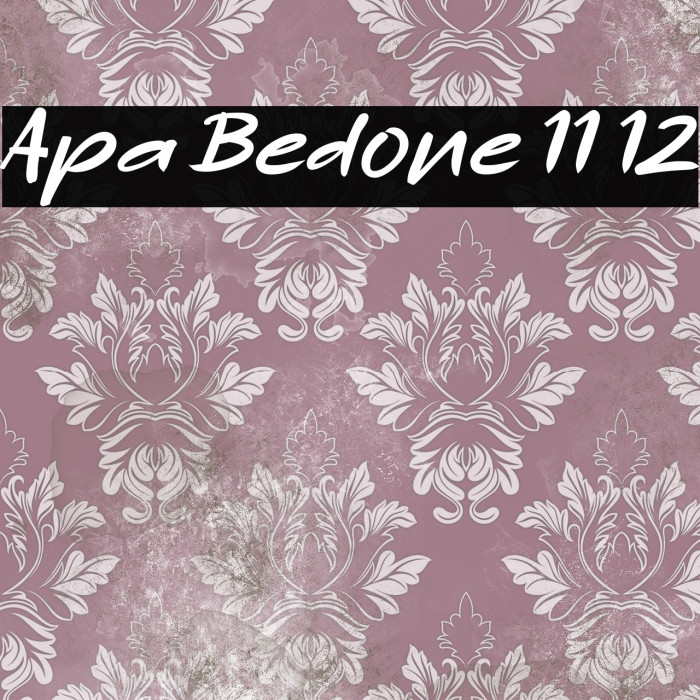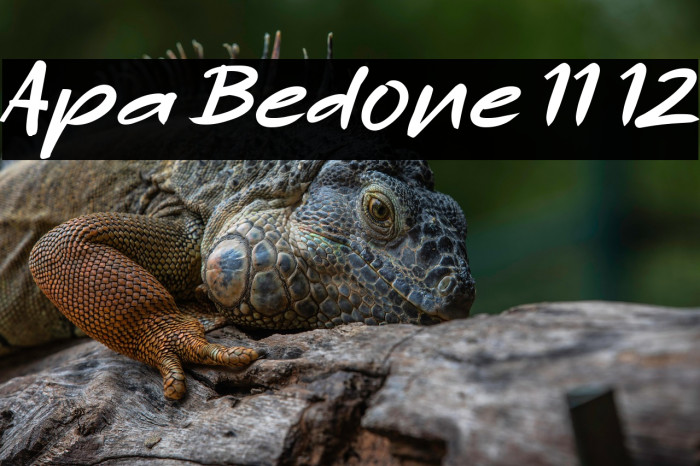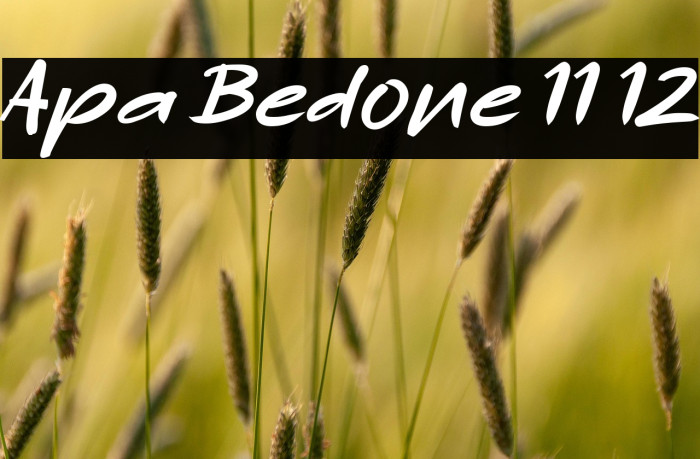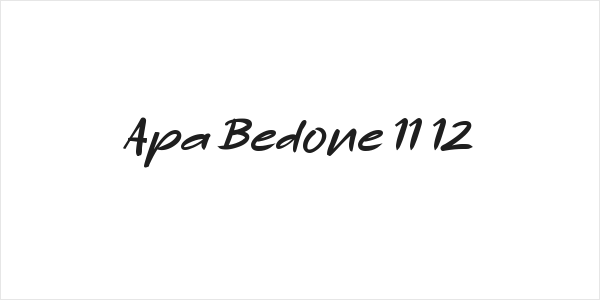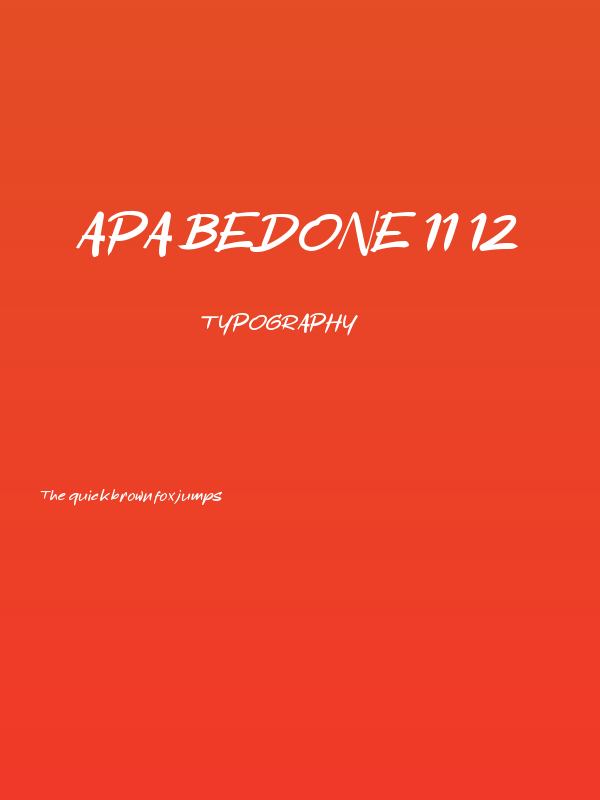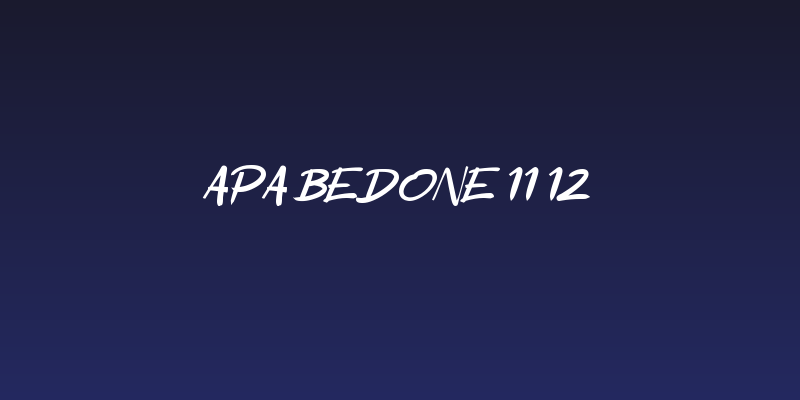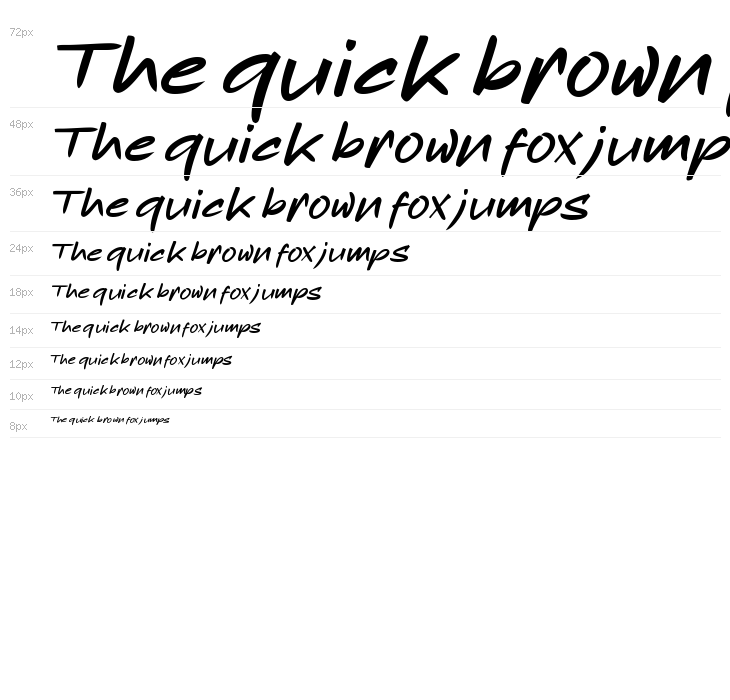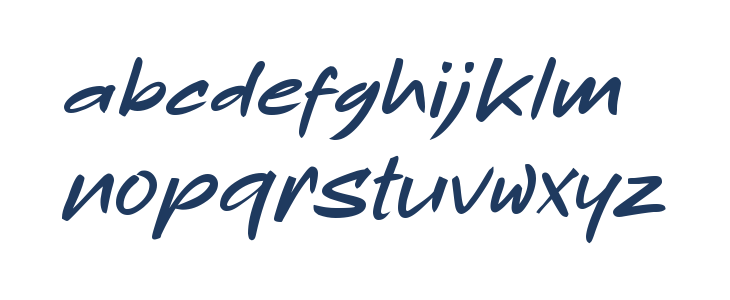
Apa Bedone 11 12 Font
Apa Bedone 11 12 Description
This font exudes a dynamic and energetic style, characterized by its fluid, cursive script that mimics natural handwriting. The letters are slightly slanted, adding a sense of motion and liveliness. The strokes are bold and confident, with a consistent thickness that ensures readability while maintaining an artistic flair. The uppercase and lowercase letters flow seamlessly, creating a harmonious look. Numbers and special characters are crafted with the same attention to detail, ensuring a cohesive appearance across all text elements. This font is perfect for projects that require a personal touch or a creative, informal vibe.
| Proposed Projects | Ideal for greeting cards, invitations, branding projects, and any design that benefits from a personal, artistic touch. |